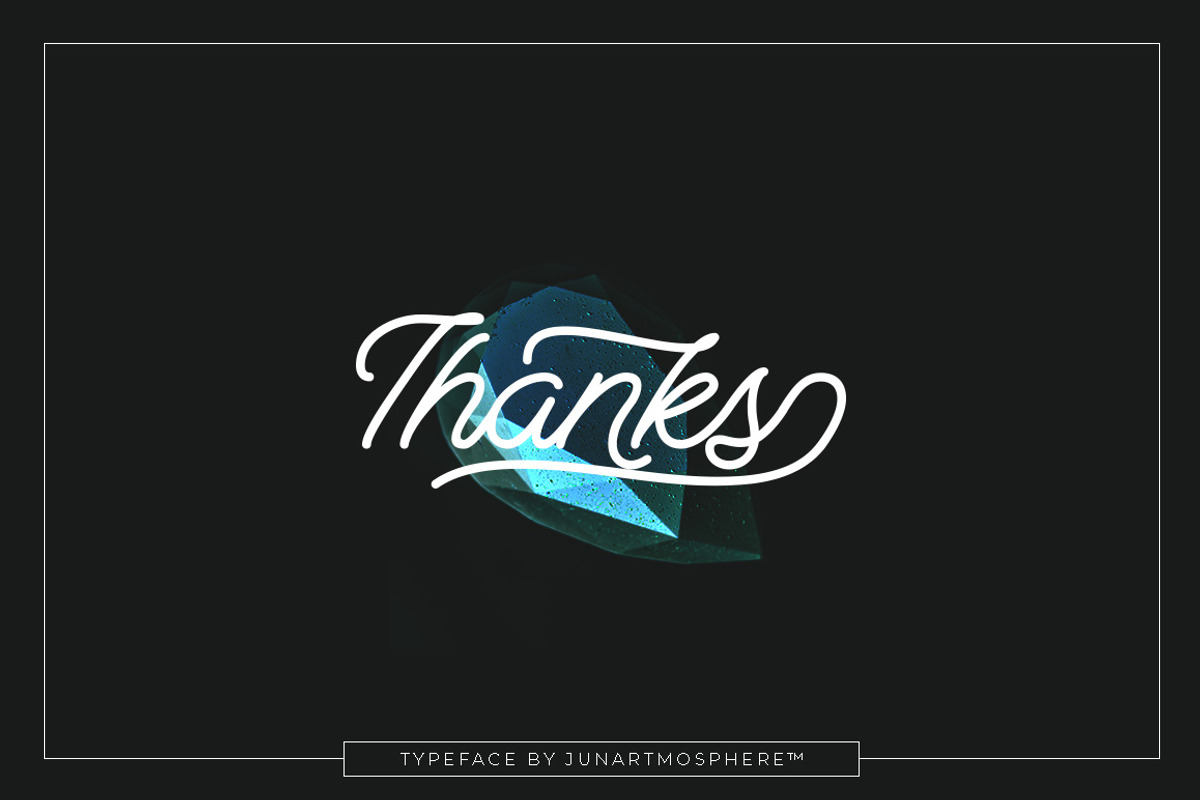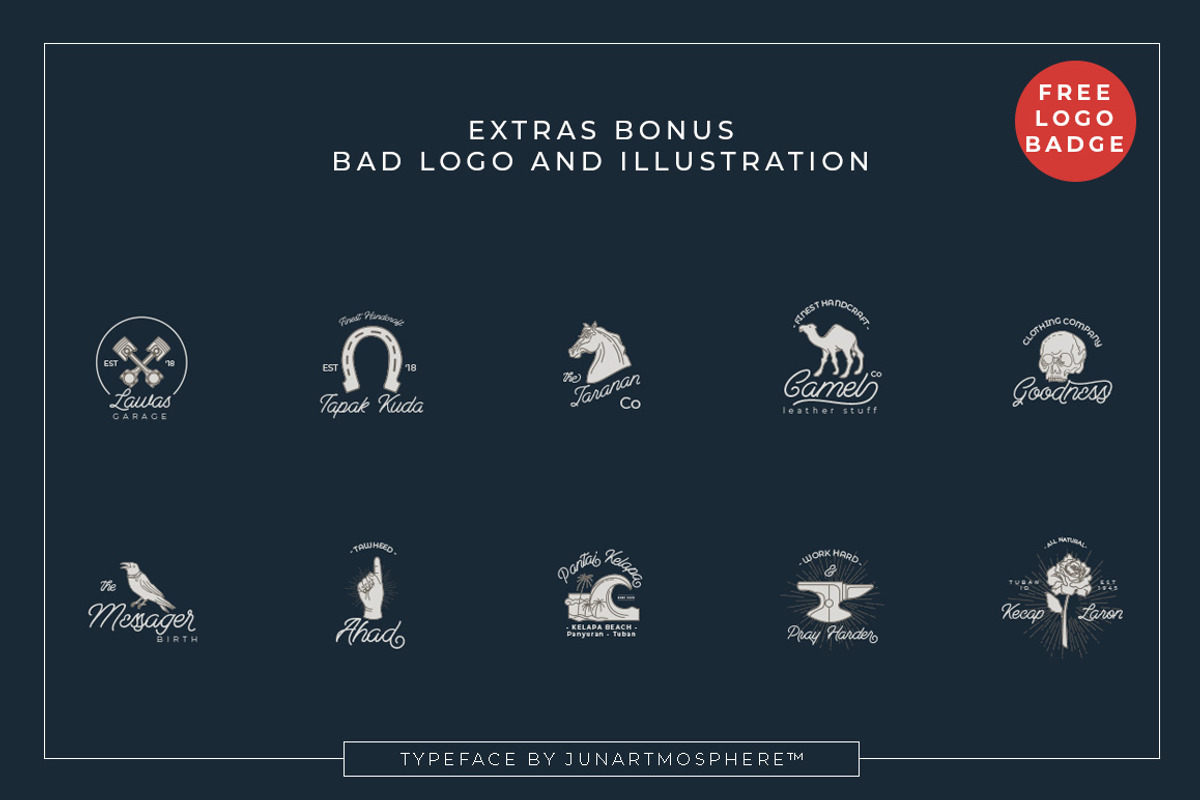
Berliana Monoline + Extrass
Berliana Monoline is a luxury monoline serif inspired by the brilliance of diamonds. Berliana means "diamond jewelry" — expensive, timeless, and full of elegance. This typeface brings that same luxury to your designs with its high-contrast strokes, elegant swashes, and 370+ glyphs including ligatures, stylistic alternates, and finals. Ideal for wedding invitations, luxury logos, boutique branding, and editorial headlines that need to shine.